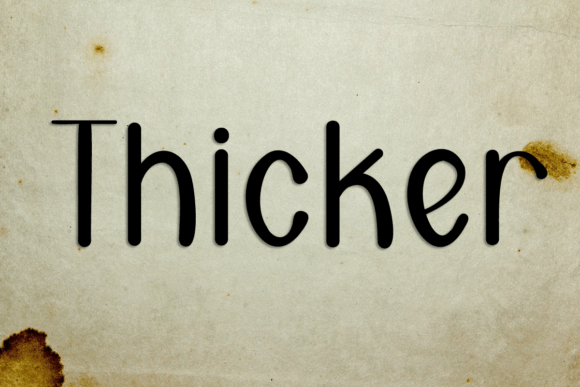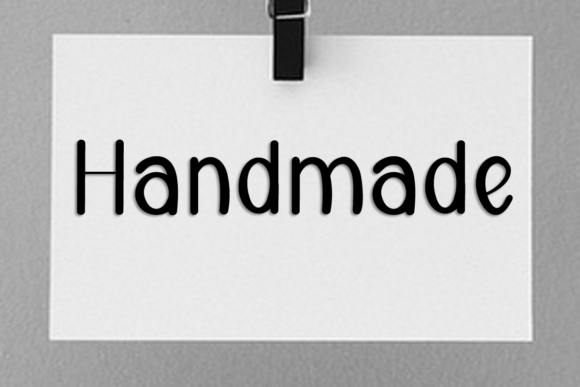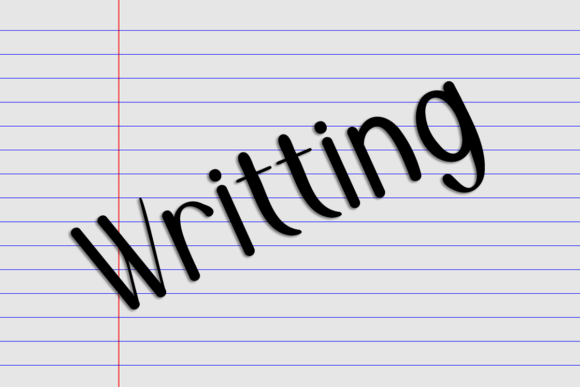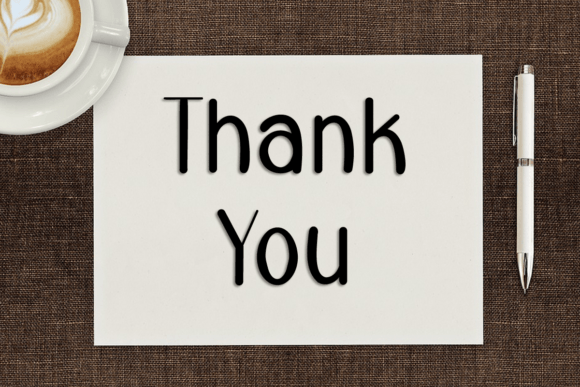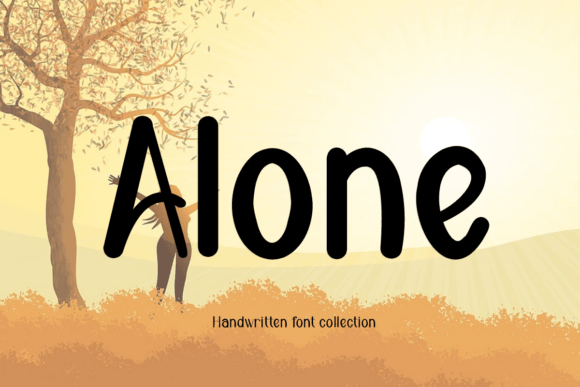
Discover the Charm of Alone Font: A Fun and Friendly Handwritten Delight
Are you on the hunt for a font that adds a touch of personality and whimsy to your designs? Look no further than the Alone Font, a delightful handwritten font that’s sure to capture your heart. With its incredibly distinct and timeless style, Alone Font is the perfect choice for designers and crafters looking to create spectacular designs that stand out from the crowd.
What Makes Alone Font So Special?
Alone Font is a fun and friendly handwritten font that’s designed to bring a sense of joy and playfulness to your projects. Its unique and distinctive style is reminiscent of handwritten notes and letters, making it perfect for a wide range of applications, from digital designs to print materials.
One of the things that sets Alone Font apart is its incredible versatility. Whether you’re working on a logo, a poster, a social media graphic, or a craft project, this font is sure to add a touch of personality and charm. Its friendly and approachable style makes it perfect for designs that need to connect with audiences on a personal level.
Key Features of Alone Font
So, what makes Alone Font so special? Here are just a few of its key features:
- Handwritten style: Alone Font is a genuine handwritten font, with all the quirks and charm that come with it.
- Distinctive and timeless: This font has a unique style that’s both modern and timeless, making it perfect for designs that need to stand the test of time.
- Fun and friendly: Alone Font is designed to be fun and engaging, making it perfect for designs that need to connect with audiences on a personal level.
- Highly versatile: This font can be used for a wide range of applications, from digital designs to print materials.
How to Use Alone Font in Your Designs
So, how can you use Alone Font in your designs? Here are a few ideas to get you started:
- Logos and branding: Alone Font is perfect for logos and branding materials that need to stand out from the crowd.
- Posters and flyers: This font is ideal for posters and flyers that need to grab attention and make a lasting impression.
- Social media graphics: Alone Font is perfect for social media graphics that need to connect with audiences on a personal level.
- Craft projects: This font is great for craft projects, such as handmade cards, gift tags, and other paper crafts.
Tips for Getting the Most Out of Alone Font
Here are a few tips for getting the most out of Alone Font:
- Experiment with different colors: Alone Font looks great in a wide range of colors, so don’t be afraid to experiment and find the perfect hue for your design.
- Play with font sizes: This font looks great in a variety of font sizes, from large and bold to small and delicate.
- Combine with other fonts: Alone Font pairs well with other fonts, so don’t be afraid to combine it with other typefaces to create a unique and interesting effect.
In conclusion, Alone Font is a fun and friendly handwritten font that’s perfect for designers and crafters looking to add a touch of personality and whimsy to their designs. With its incredibly distinct and timeless style, this font is sure to capture your heart and inspire your creativity. So why wait? Download Alone Font today and start creating spectacular designs that stand out from the crowd!